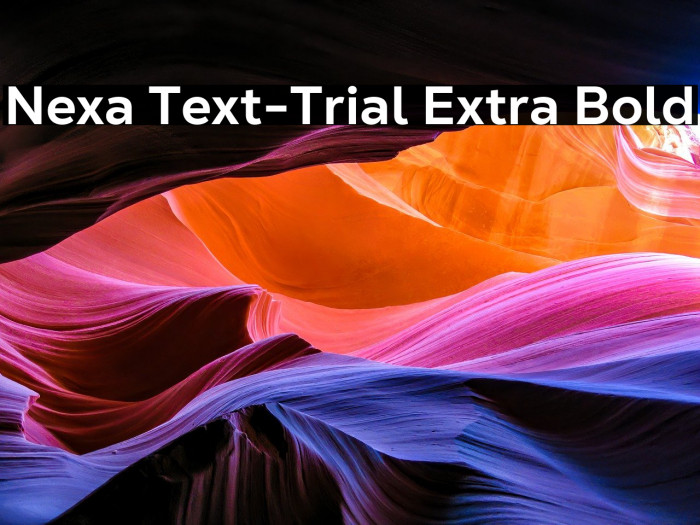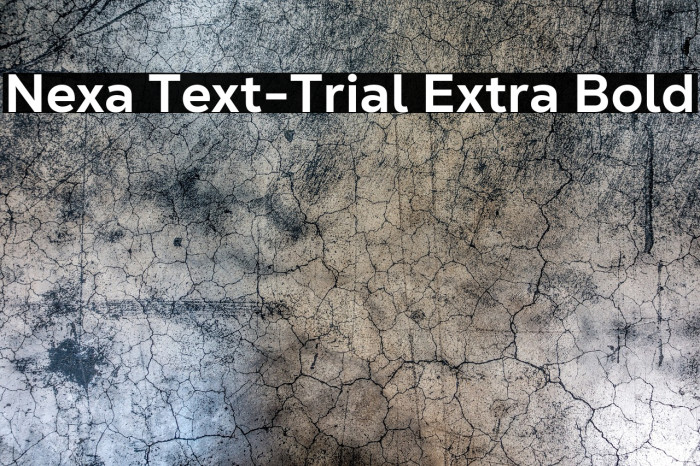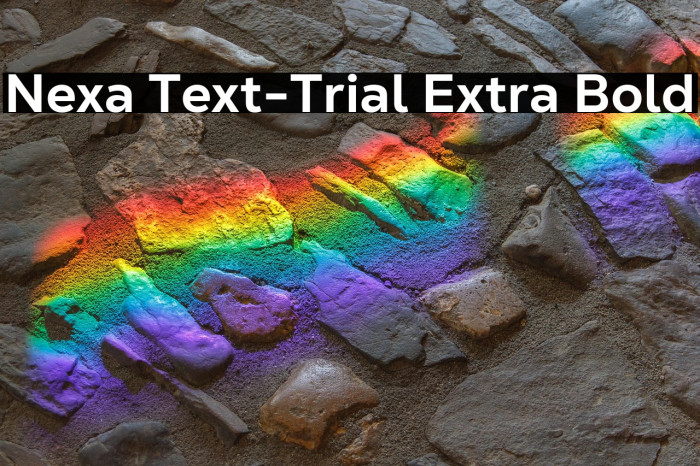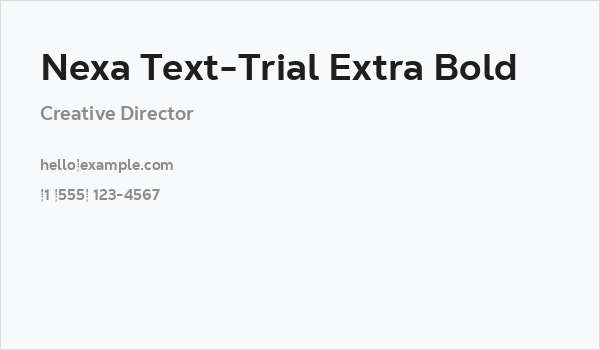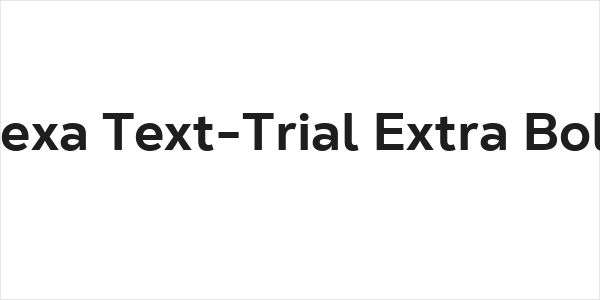
Nexa Text-Trial Extra Bold Font
Nexa Text-Trial Extra Bold Description
This typeface features a clean and modern sans-serif design with a strong geometric structure. The characters are bold and uniform, providing excellent readability and a contemporary aesthetic. The uppercase and lowercase letters maintain a consistent weight, contributing to a balanced and cohesive appearance. The numerals are clear and distinct, making them suitable for various applications. The special characters are well-integrated, enhancing the font's versatility. Its extra-bold weight adds emphasis and impact, making it ideal for attention-grabbing headlines and branding.
| Proposed Projects | Ideal for branding, advertising, headlines, posters, and digital media where a strong and modern presence is needed. |